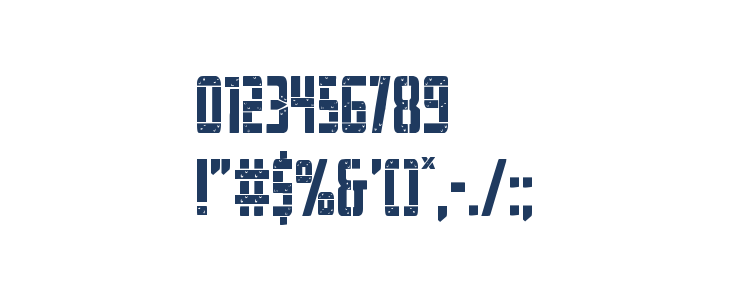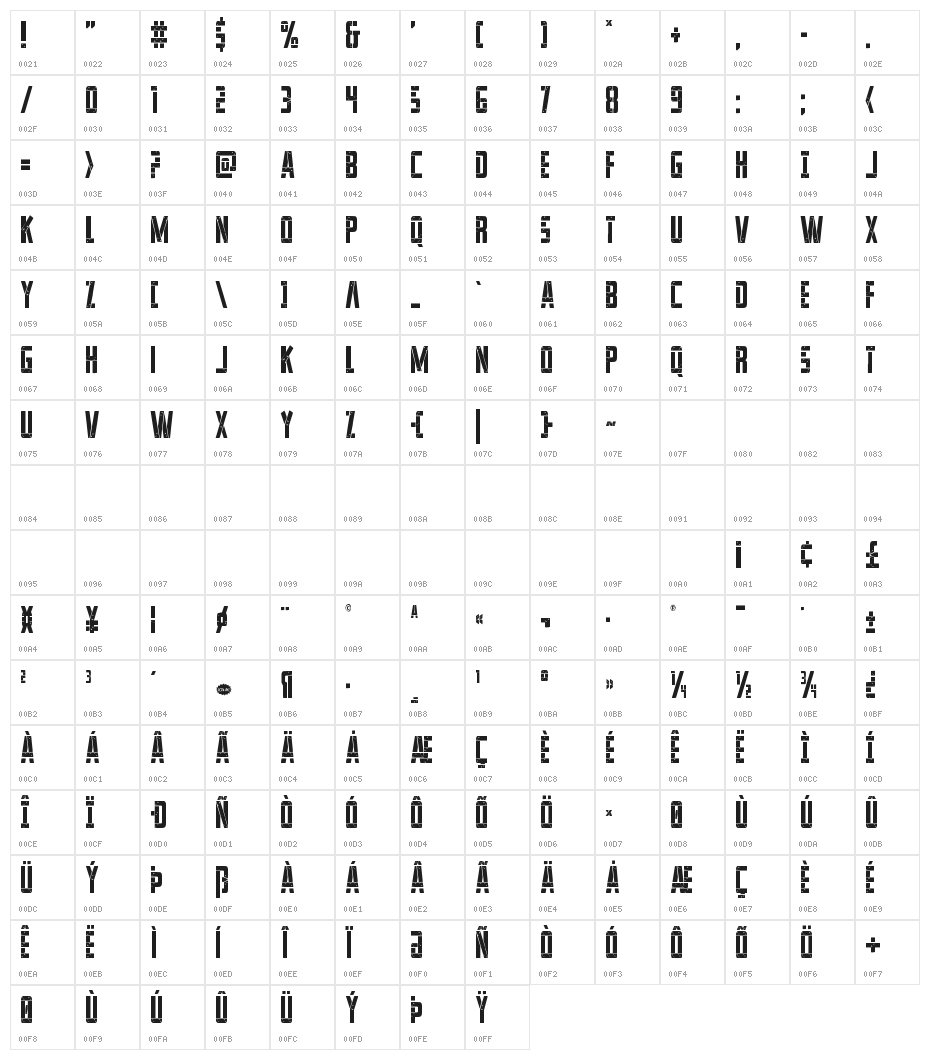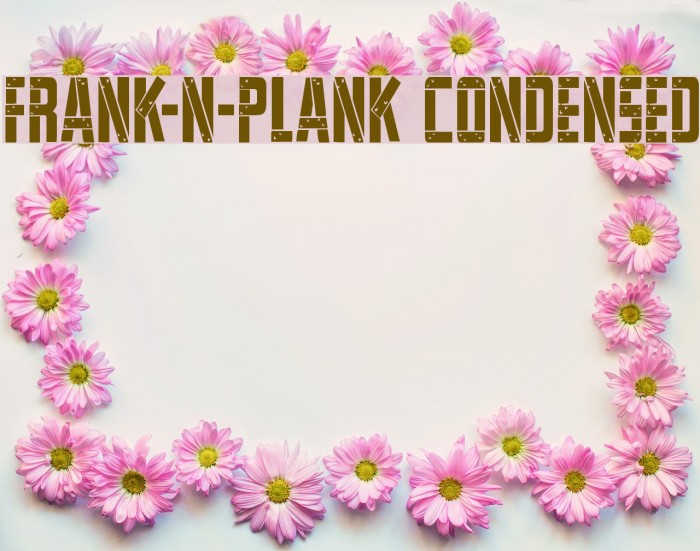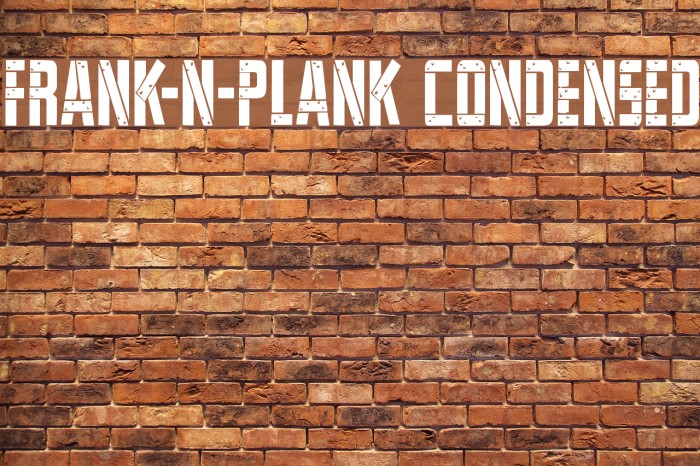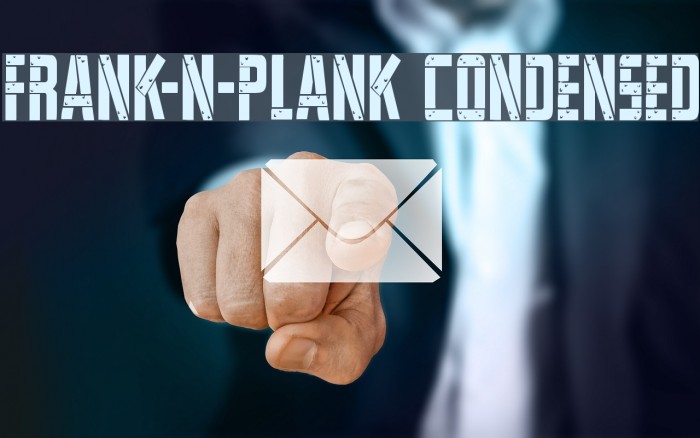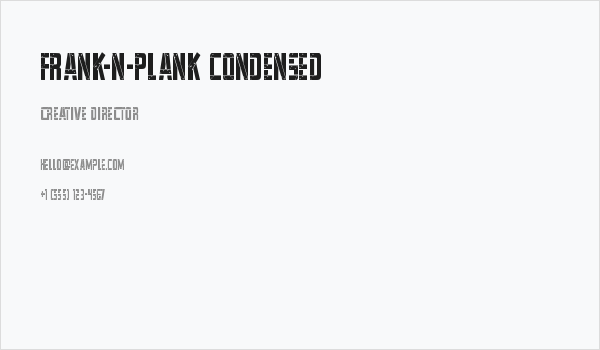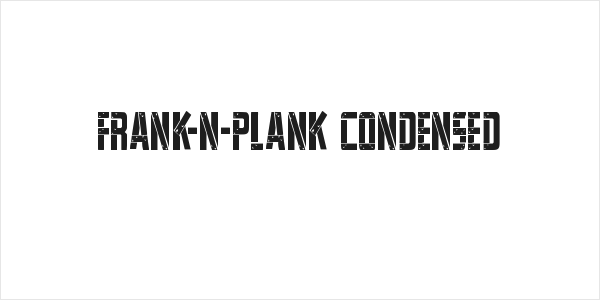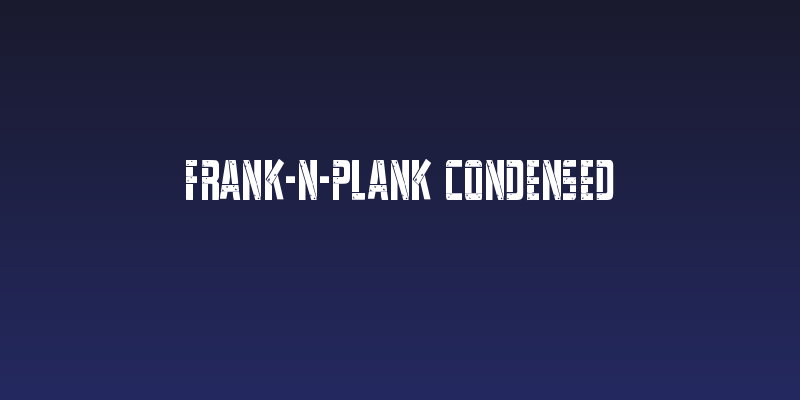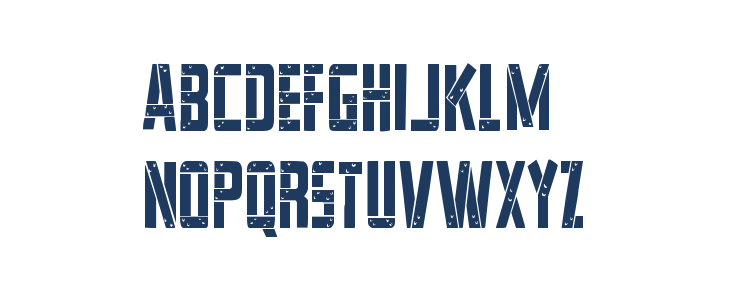
Frank-n-Plank Condensed Font
Frank-n-Plank Condensed Description
This font features a bold, industrial style with a distinct stencil-like appearance. Each character is constructed with solid, geometric shapes, giving it a robust and mechanical feel. The letters are adorned with small, circular cutouts that add a unique, decorative touch reminiscent of rivets or bolts. The condensed width of the characters enhances its compact and efficient look, making it suitable for impactful and space-conscious designs. The font's high contrast between the thick strokes and the negative space within the letters creates a striking visual effect, ensuring readability while maintaining its decorative appeal.
| Overall Style | Industrial, Decorative |
| Proposed Projects | Ideal for industrial-themed posters, branding for construction or machinery companies, and eye-catching headlines. |